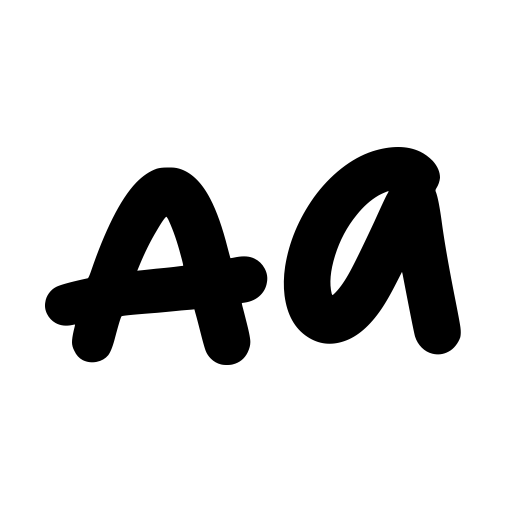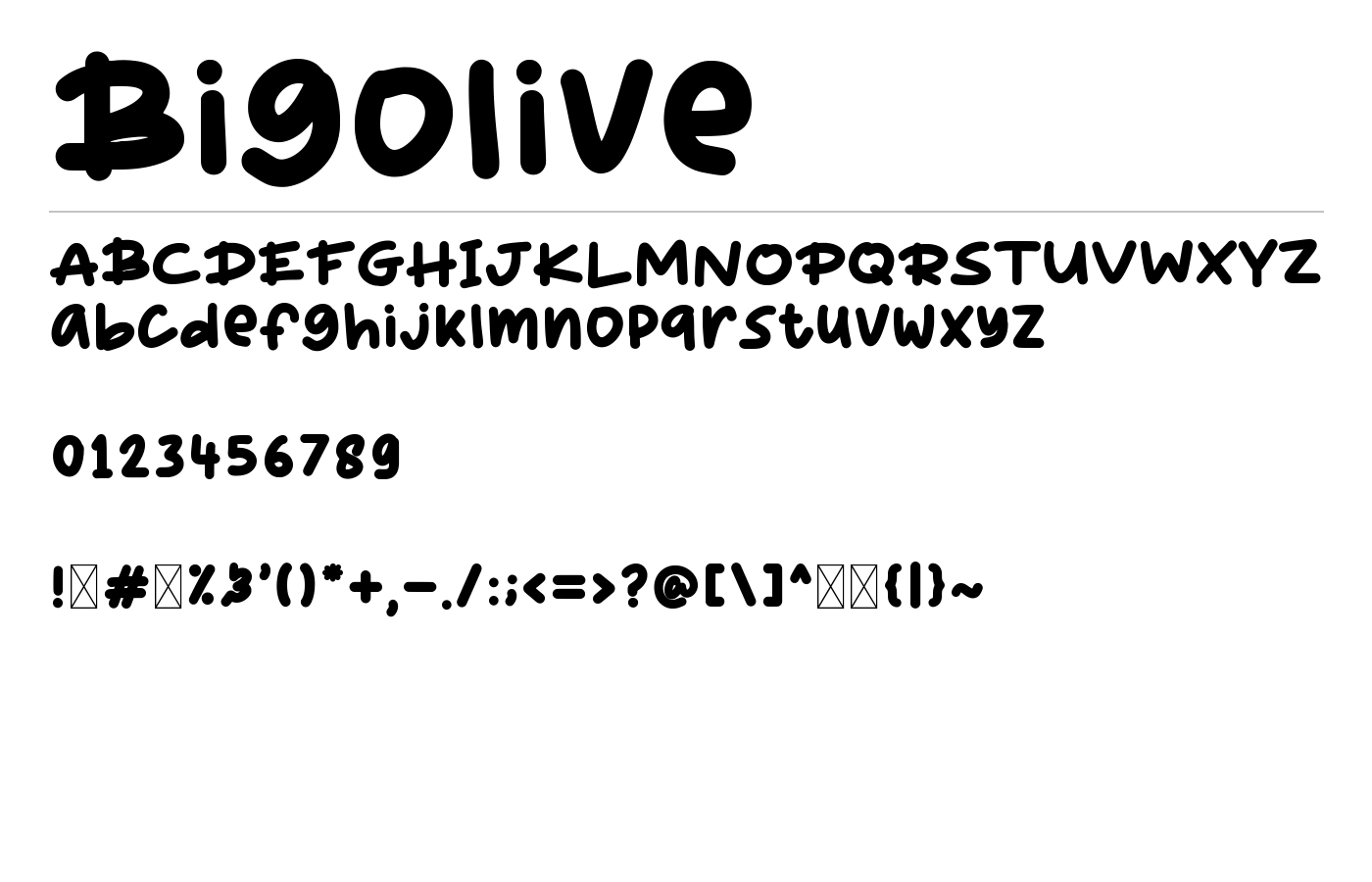
Bigolive is a playful, rounded sans serif font characterized by its bold weight and chunky, irregular shapes that give off a friendly, hand-drawn vibe. Its informal and approachable style makes it perfect for casual brand identities, children’s books, posters, and websites that want to convey warmth and creativity. This font excels in settings where a fun, lively, and inviting tone is desired.
Bigolive Font
About Bigolive Font
| Font family | Bigolive Font |
| Designer | Masyafi Studio |